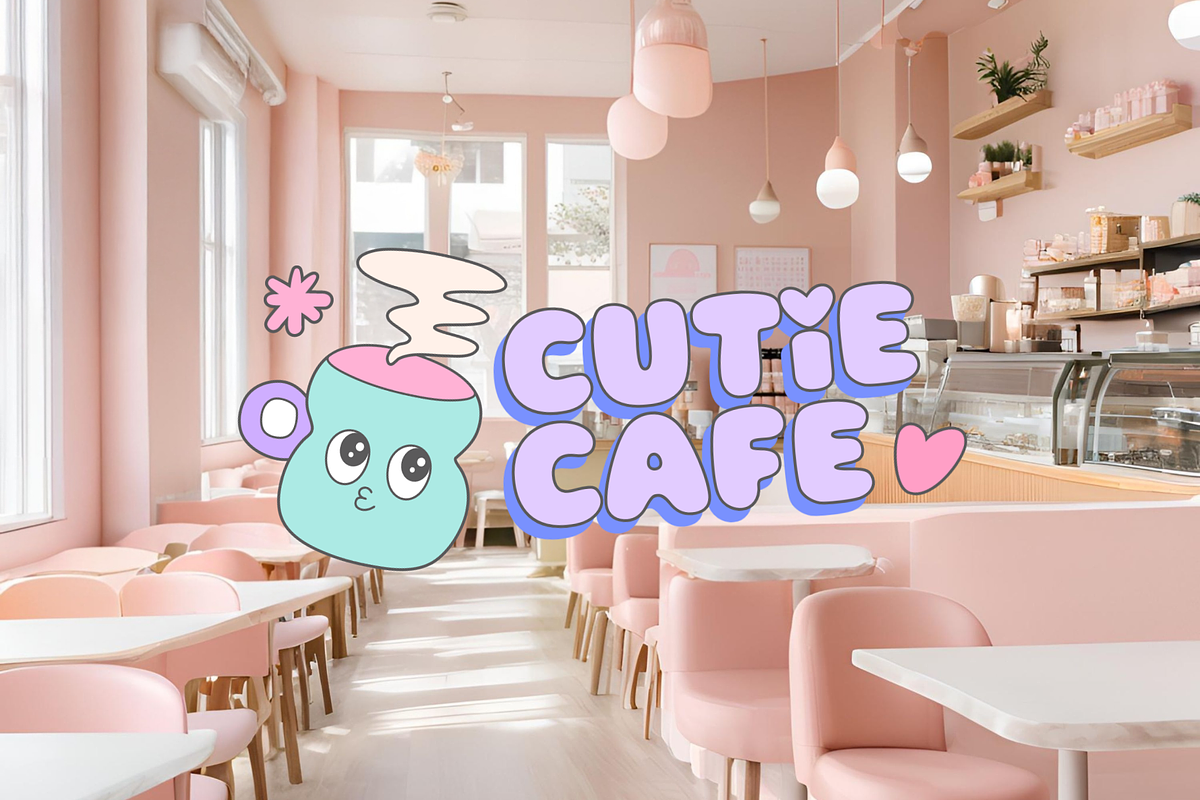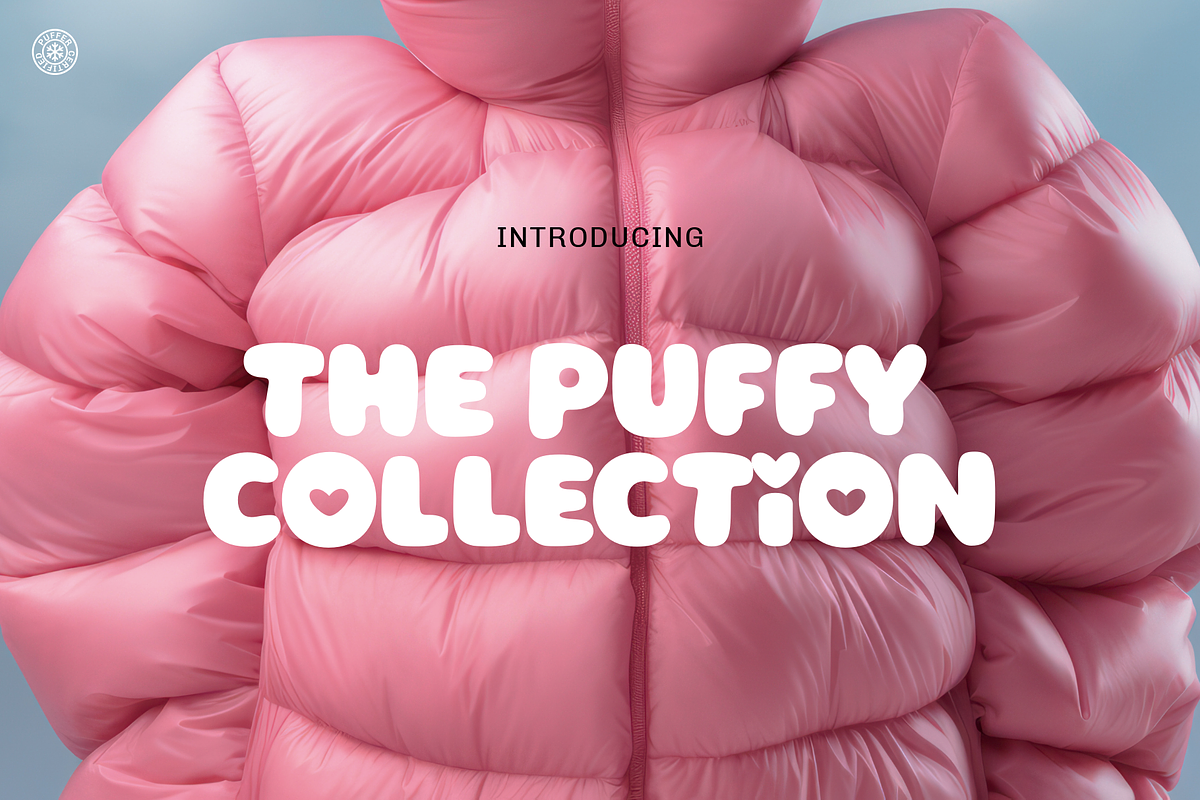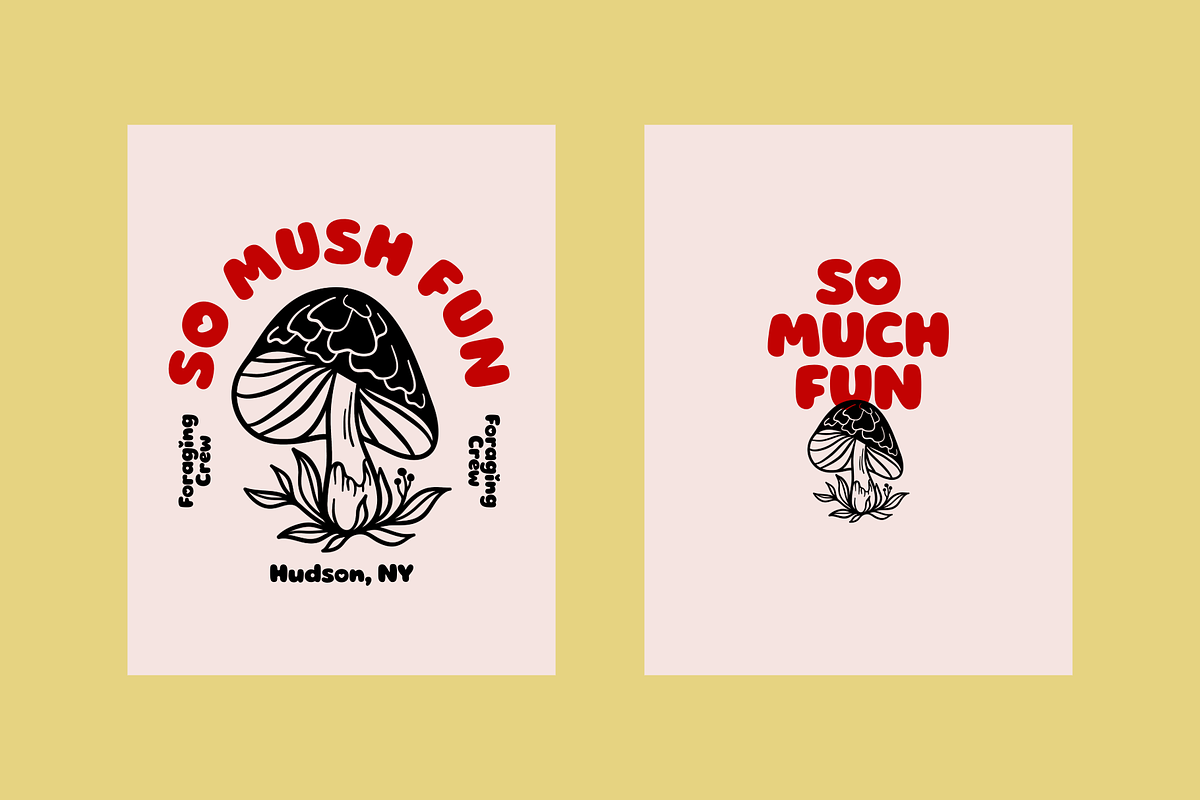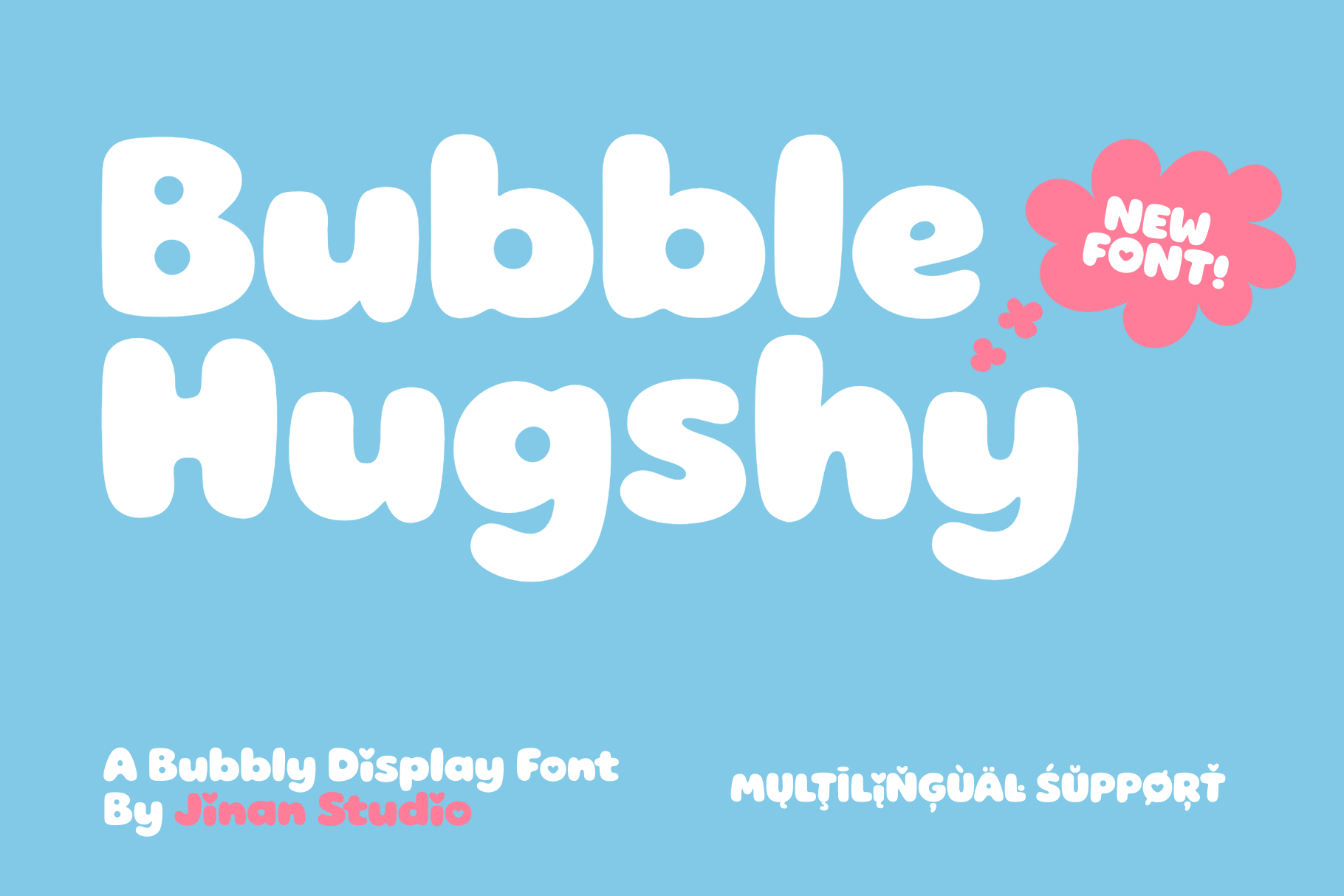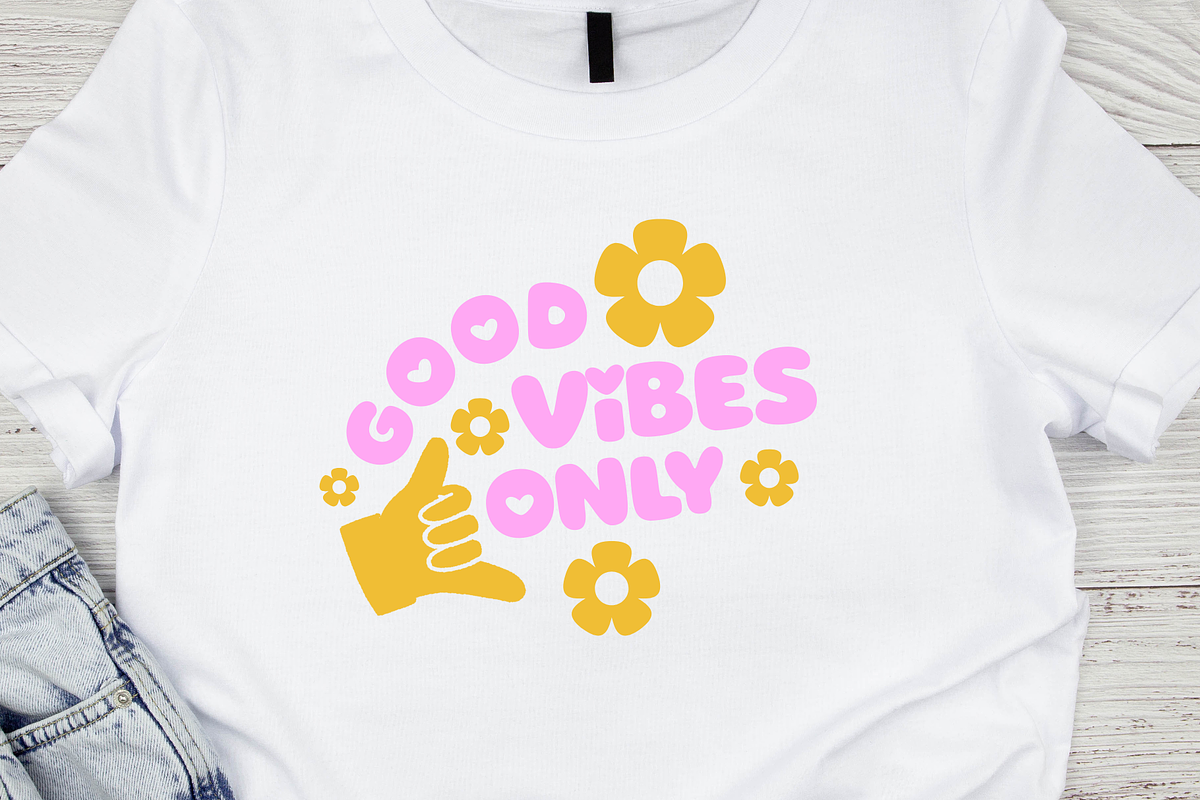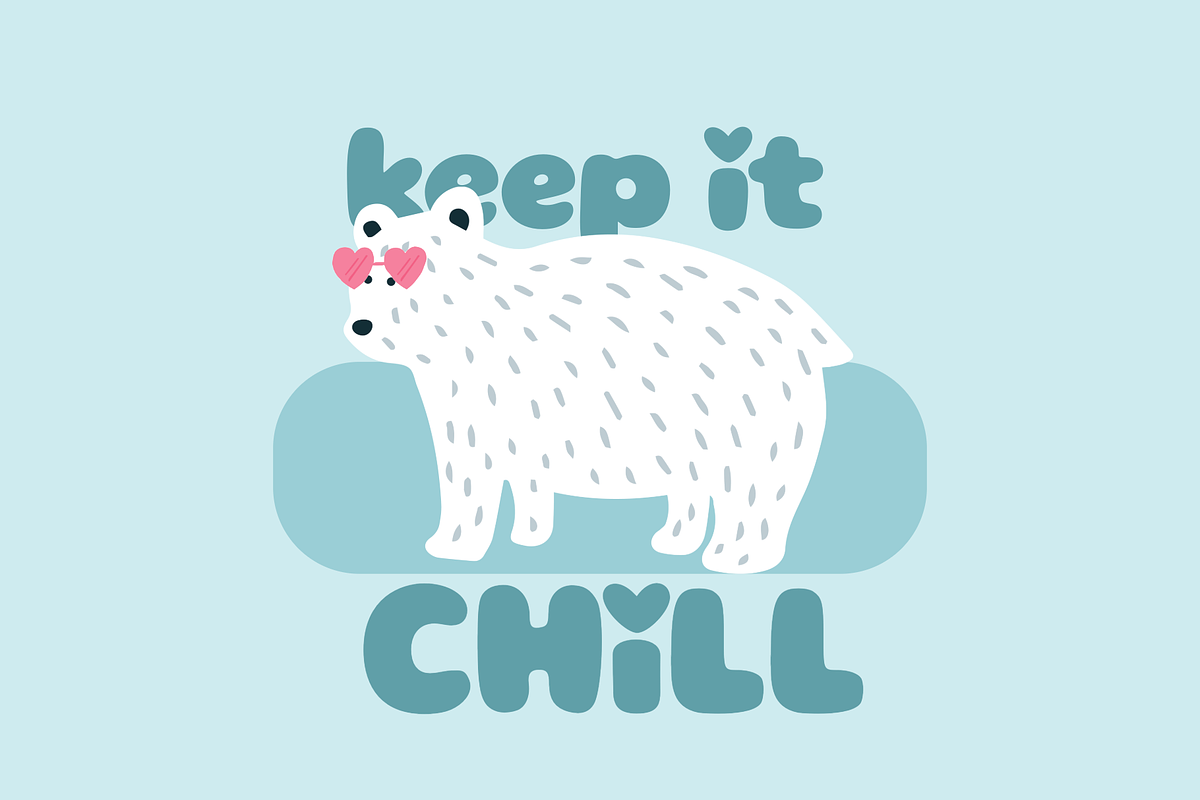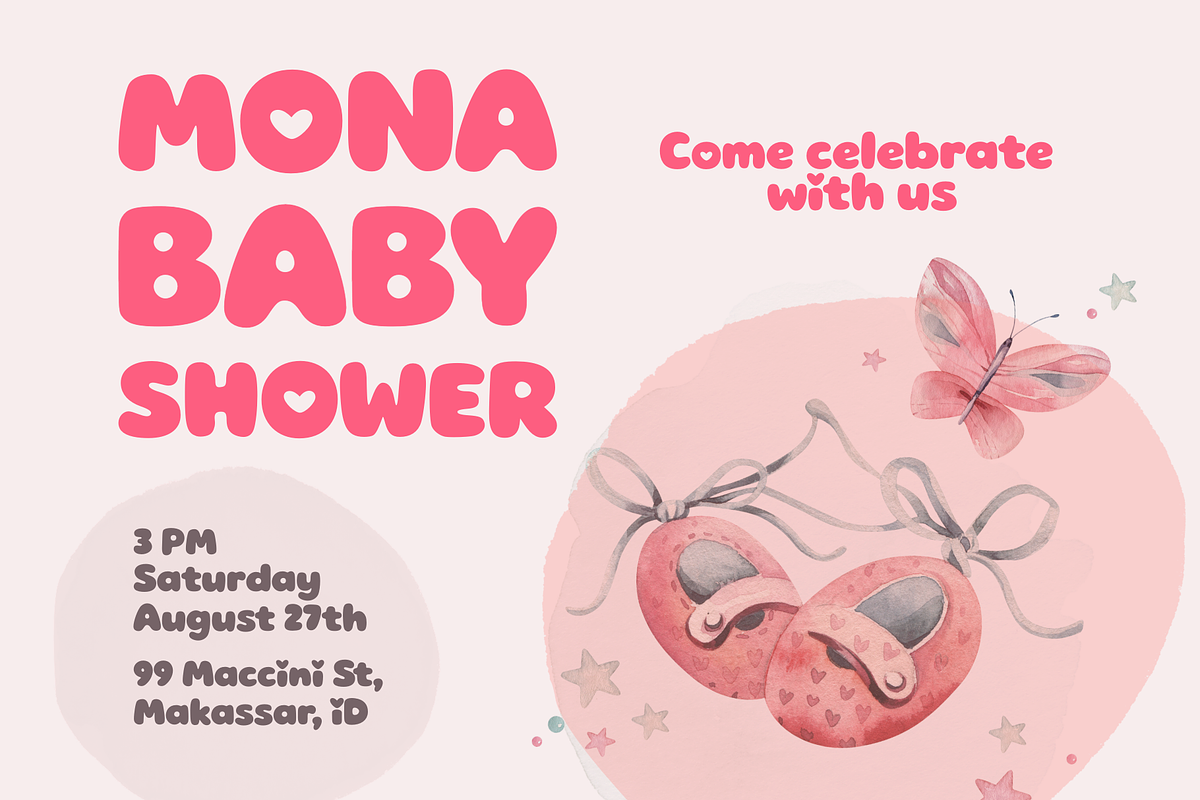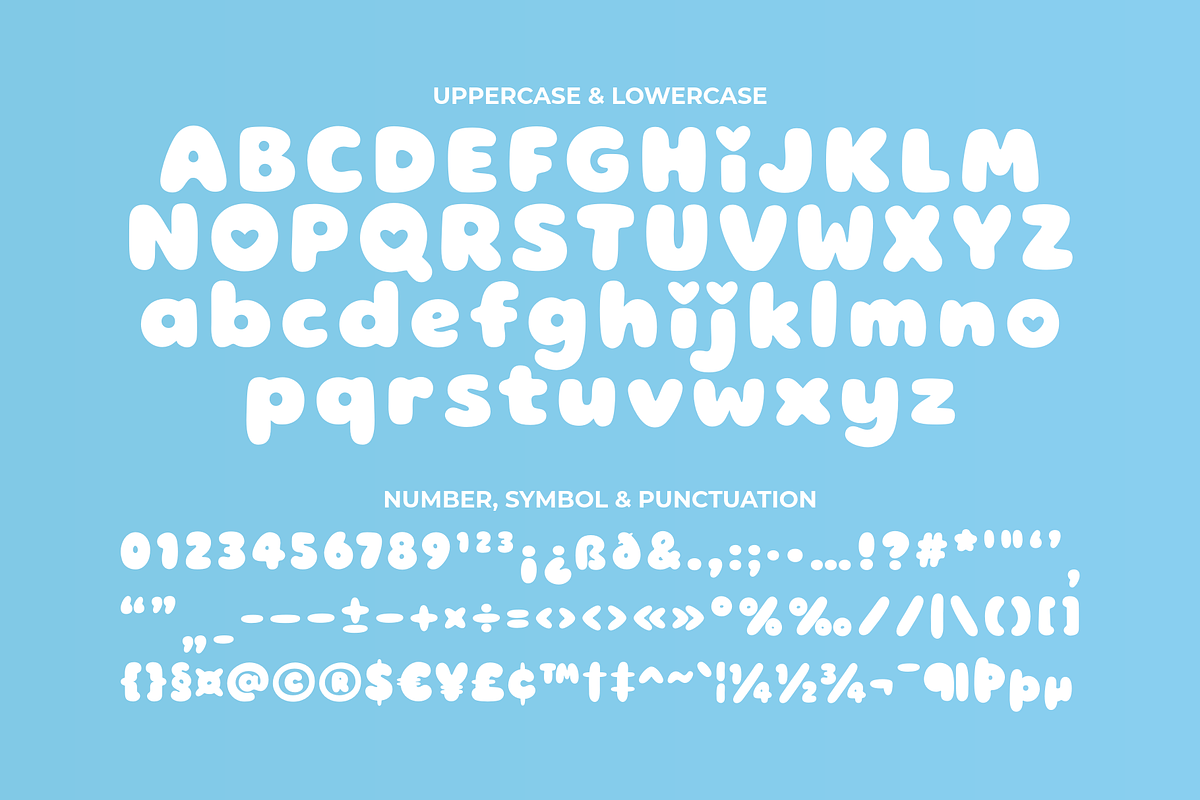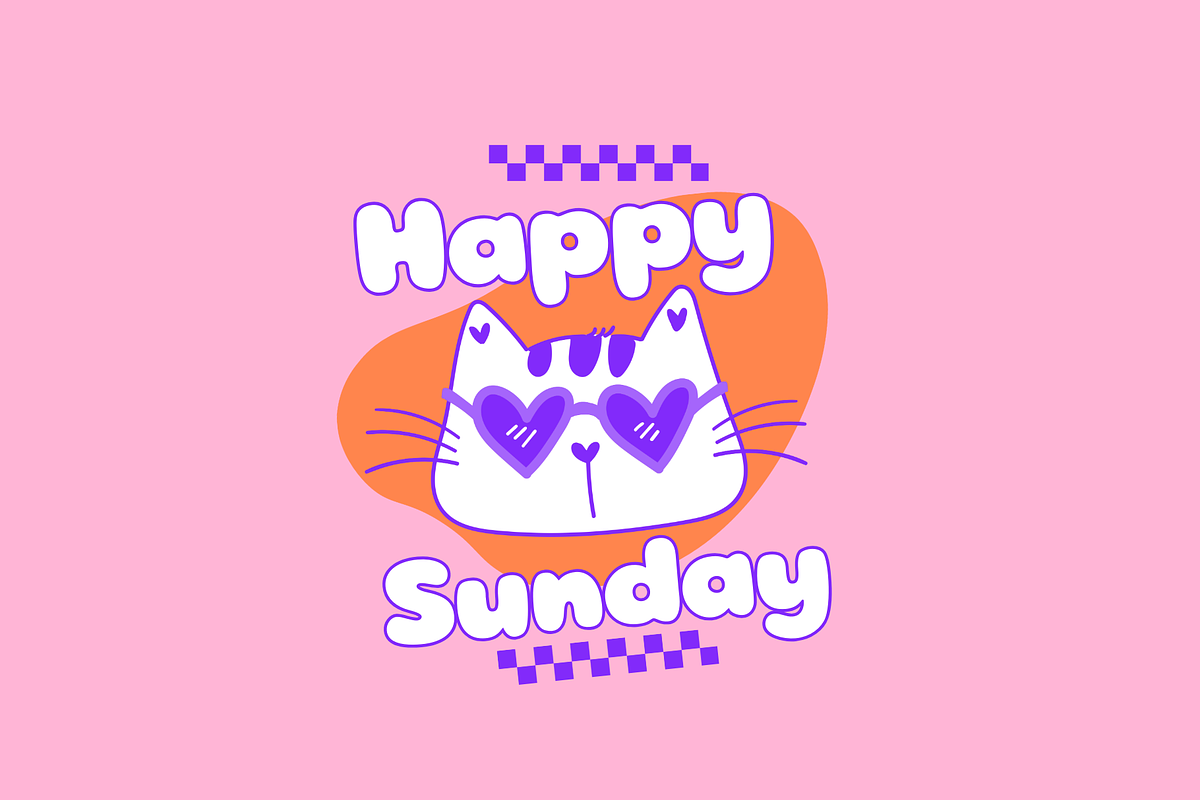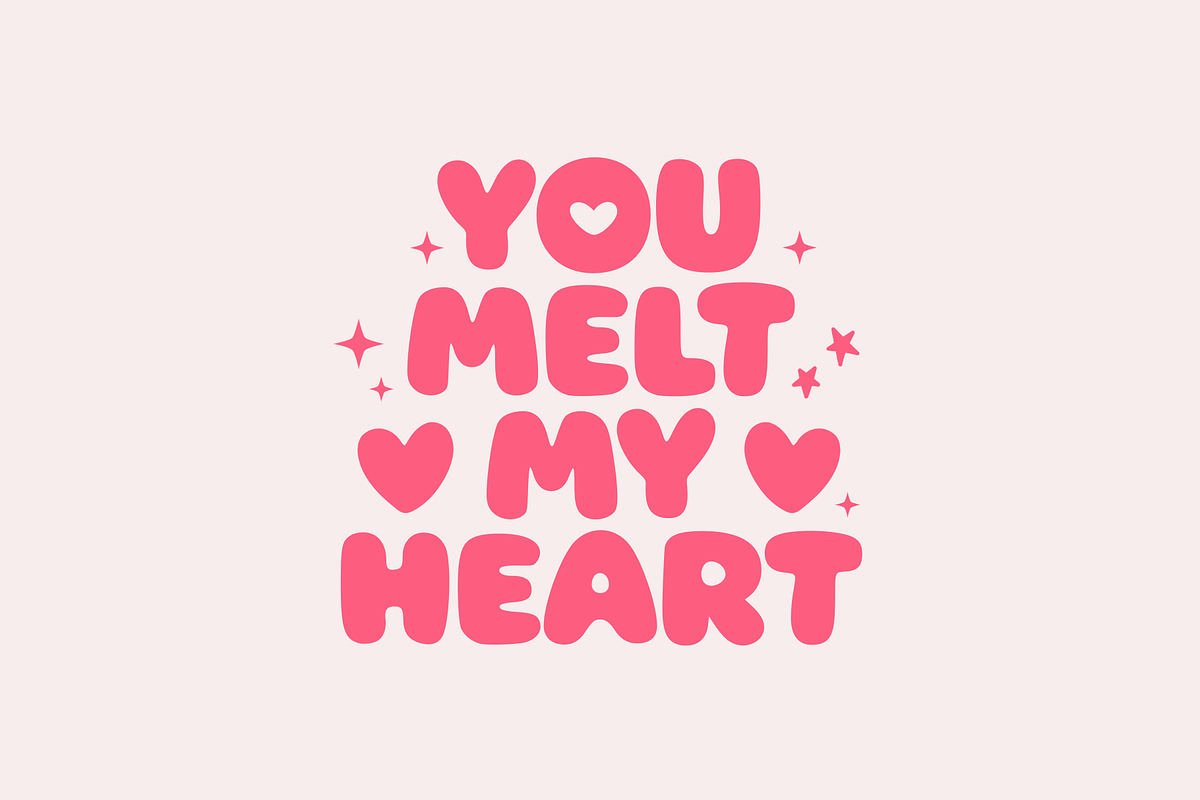
Bubble Hugshy - A Display Font
Bubble Hugshy is a cute and playful bubbly display font crafted to bring fun, warmth, and charm into your creative projects. Featuring soft, rounded, and chubby letterforms, this font delivers a friendly and joyful look that instantly grabs attention.
Perfect for branding, logos, packaging, children’s designs, posters, social media graphics, quotes, stickers, merchandise, and any project that needs a cheerful and lovable touch. Bubble Hugshy keeps designs bold, readable, and full of personality. Bubble Hugshy is the perfect choice when your design needs to feel happy, friendly, and unforgettable.
- A set of uppercase and lowercase glyphs
- Number, symbol, and punctuation